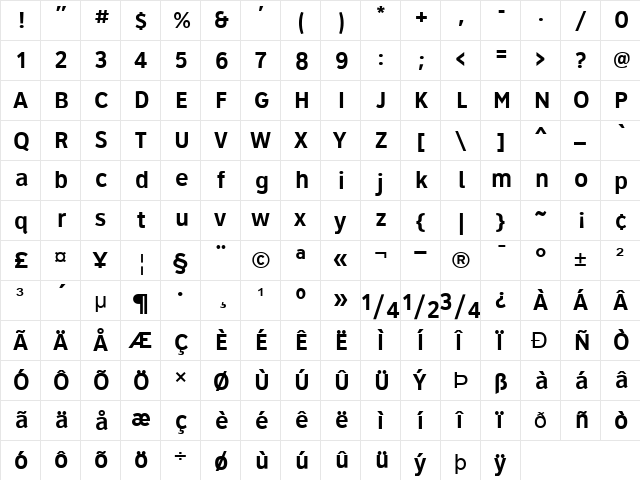
Roadgeek 2005 Series 4B Regular
Design Context for Roadgeek 2005 Series 4B Typeface
Roadgeek 2005 Series 4B is a composed and adaptable typeface that performs quietly and consistently across a wide range of design contexts.